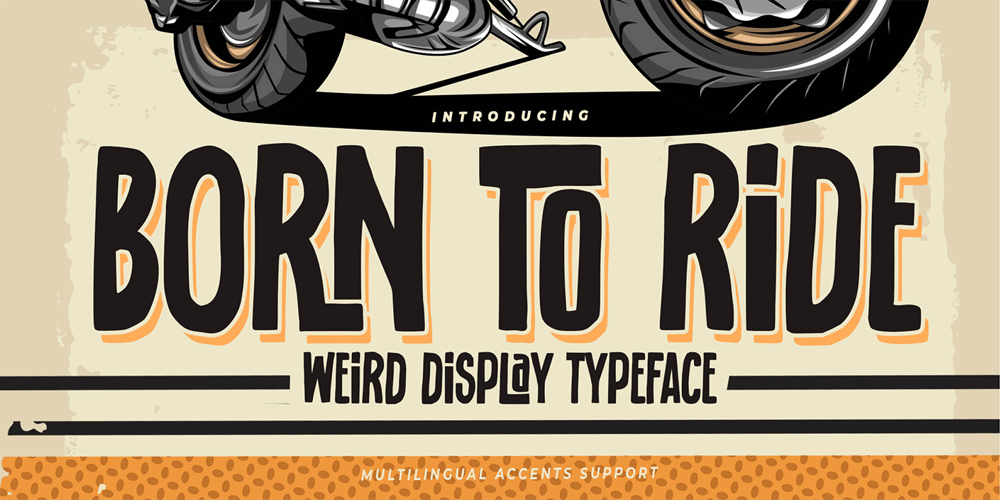
Born To Ride Font Family was designed by Abdul Malik Wisnu, Anang Fibriyanto and published by Gassstype. Born To Ride contains 1 styles and family package options. Here comes a New font, Introducing BORN TO RIDE It’s Weird Display Typeface is a Natural Brush Style and Authentic classy style, this font is great for your creative projects such as watermark on photography, and perfect for logos & branding, invitation,advertisements,product designs.It also features a wealth of special features including You can activate 22 Ligatures OpenType panel.